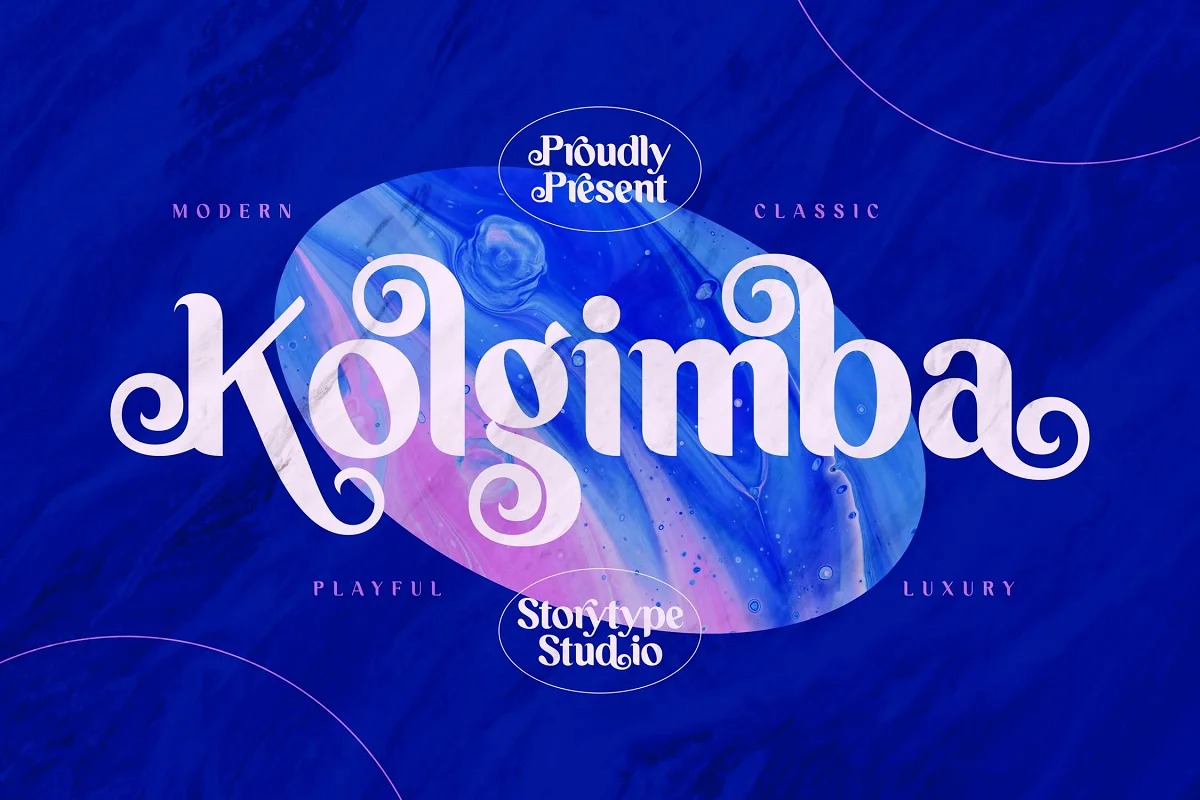
Kolgimba Sans Serif Font
This is a sans serif typeface in an elegant & modern style with special alternate ligatures and glyphs. This typeface is perfect for an elegant & luxury logo, book or movie title design, fashion brand, magazine, clothes, lettering, quotes, and so much more.